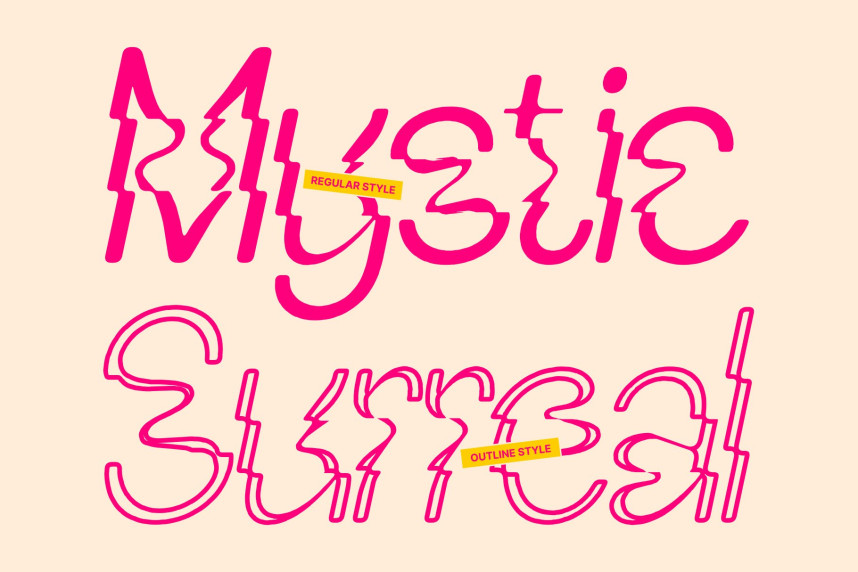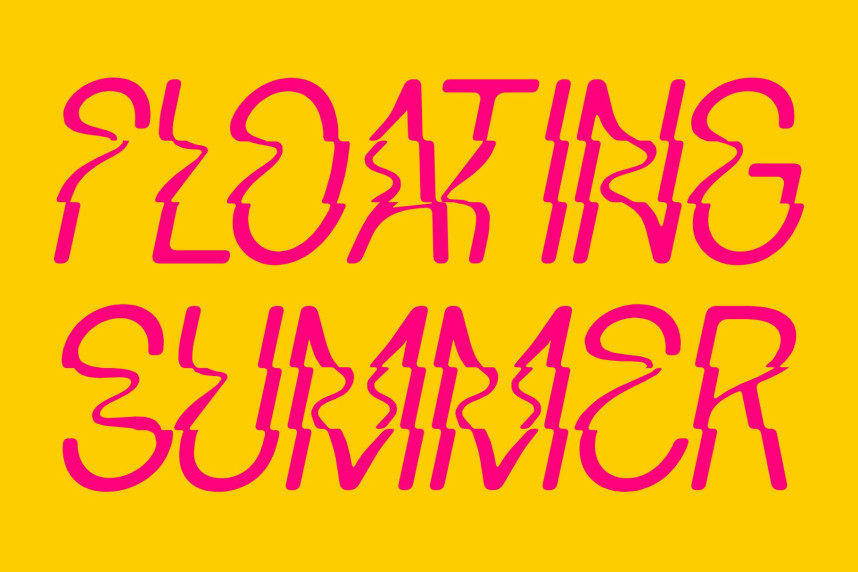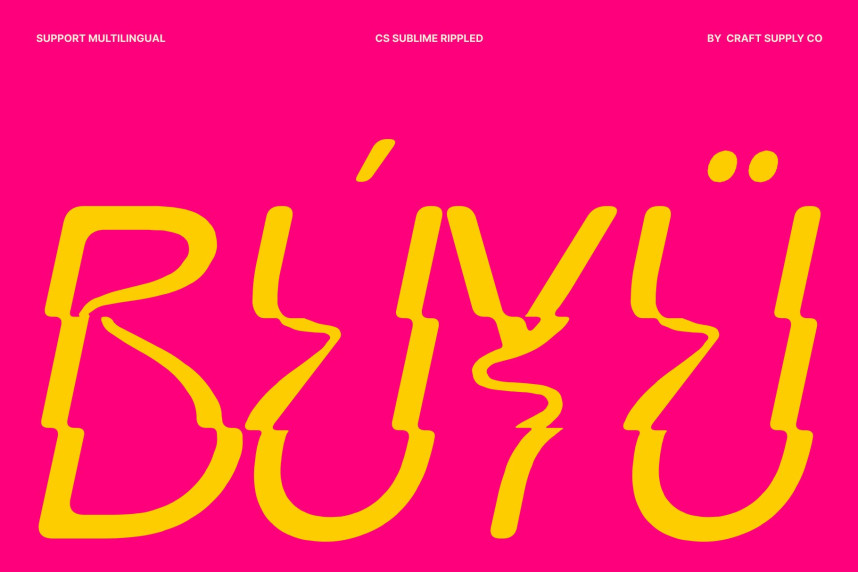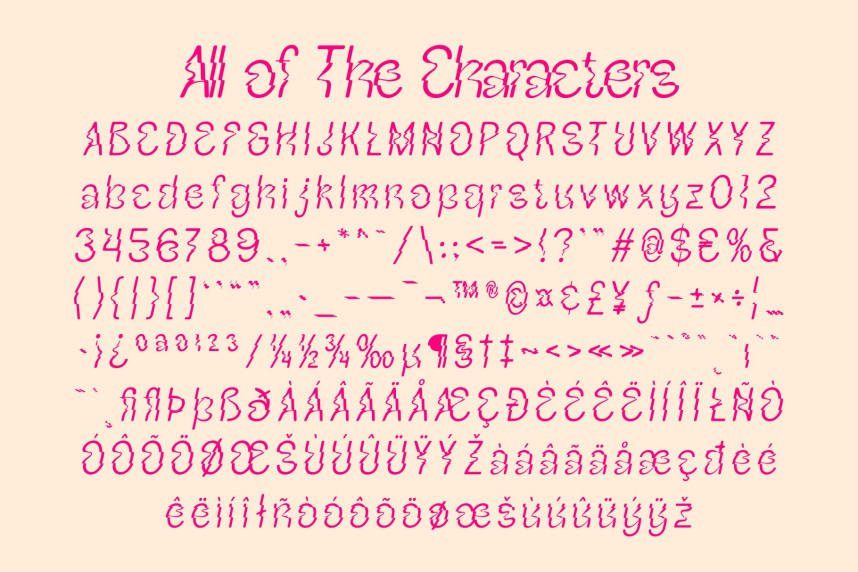
CS Sublime Rippled Font
CS Sublime Rippled Font – Modern Display Font: Where Psychedelic Expression Meets Fluid Wave Motion
Funky Letterforms with Cheerful Personality
This is a modern display font defined by trippy, psychedelic shapes that radiate energy and creativity. Its expressive letterforms feature flowing curves and unconventional proportions, creating a funky, cheerful appearance that instantly captures attention. Every character is designed to bring playful movement and artistic personality to your typography.